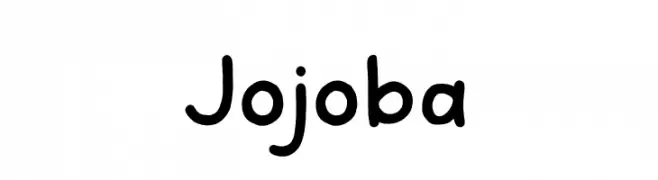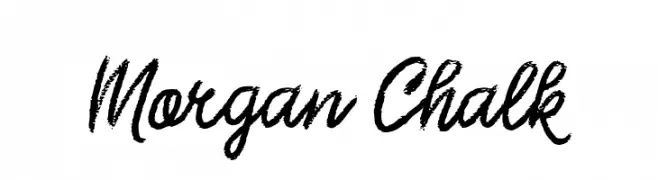
A playful, hand-drawn comic-style font with bold outlines and a shadow effect.
A bold, hand-drawn font with a playful, textured design.
A bold, textured font with a hand-drawn, artistic style.
A hand-drawn, sketch-like font with jagged lines and an edgy appearance.
A whimsical, hand-drawn style font with bold, rounded characters.
A bold, playful font with a hand-drawn, whimsical style.
A playful, bold 3D font with a hand-drawn, comic book style.
A bold, playful font with a hand-drawn, cartoonish style.
A playful, hand-drawn style font with irregular strokes and a whimsical appearance.
A playful, hand-drawn font with a striped pattern and whimsical style.
A playful, outlined font with a hand-drawn, whimsical style.
A bold, playful font with a hand-drawn, dynamic style.
A playful, bold font with rounded, thick strokes and a hand-drawn feel.
A bold, playful font with rounded edges and a hand-drawn feel.
A bold, hand-drawn font with a playful, textured design.
Hand-drawn sketch icon font with playful, casual style.
A decorative dingbat collection of hand-drawn frames and embellishments.
A playful, hand-drawn font with a cartoonish and whimsical style.
A bold, hand-drawn font with a charcoal sketch style.
A playful, whimsical font with irregular, hand-drawn letterforms.